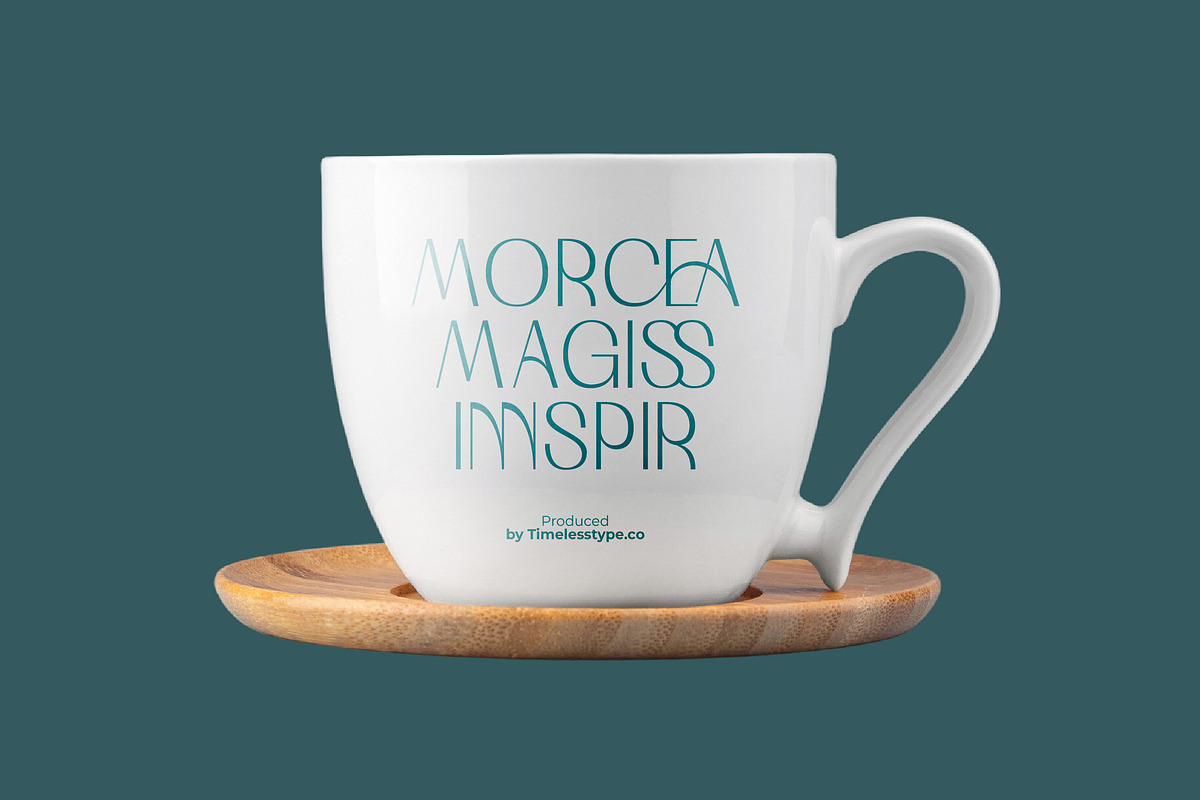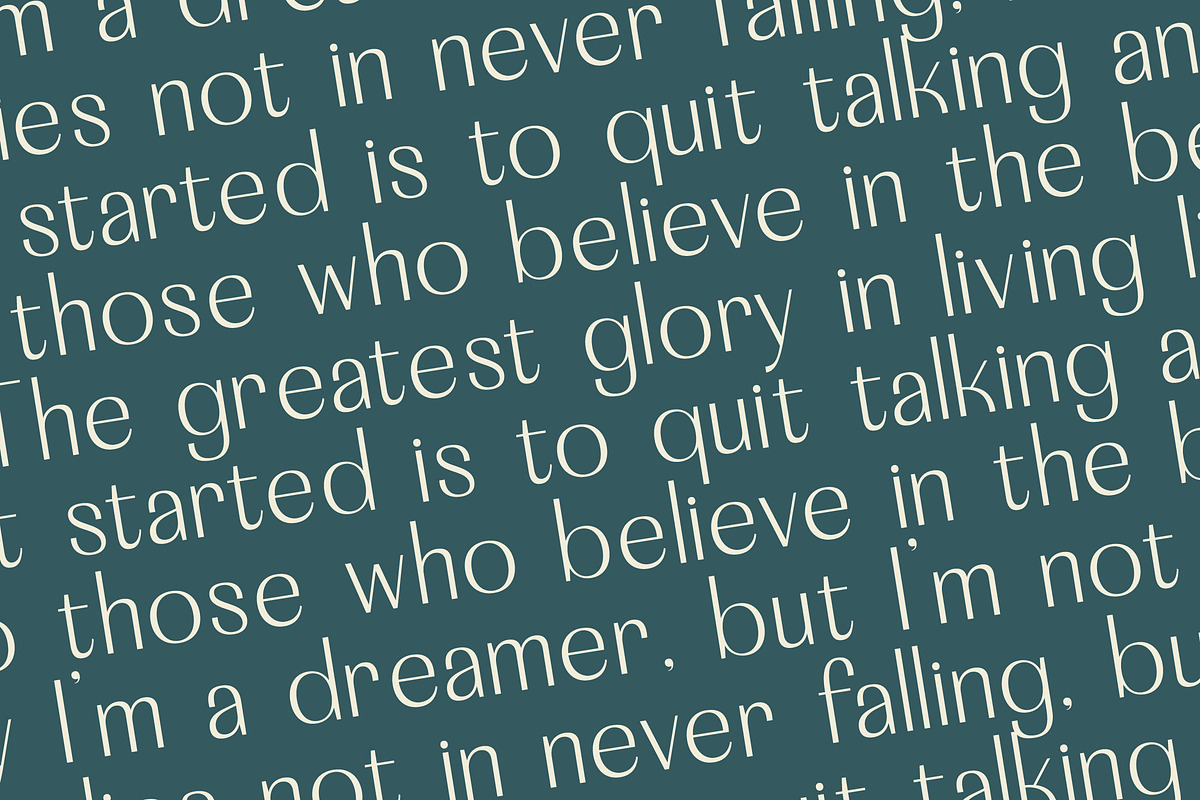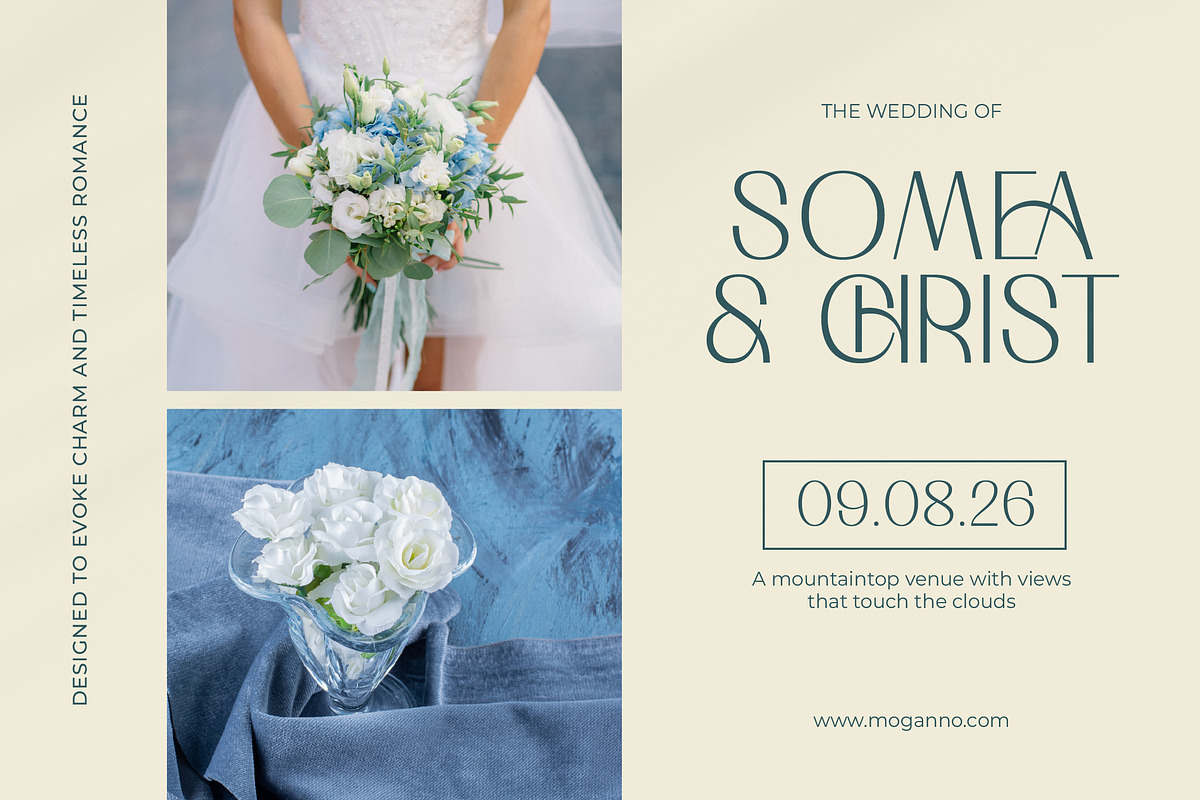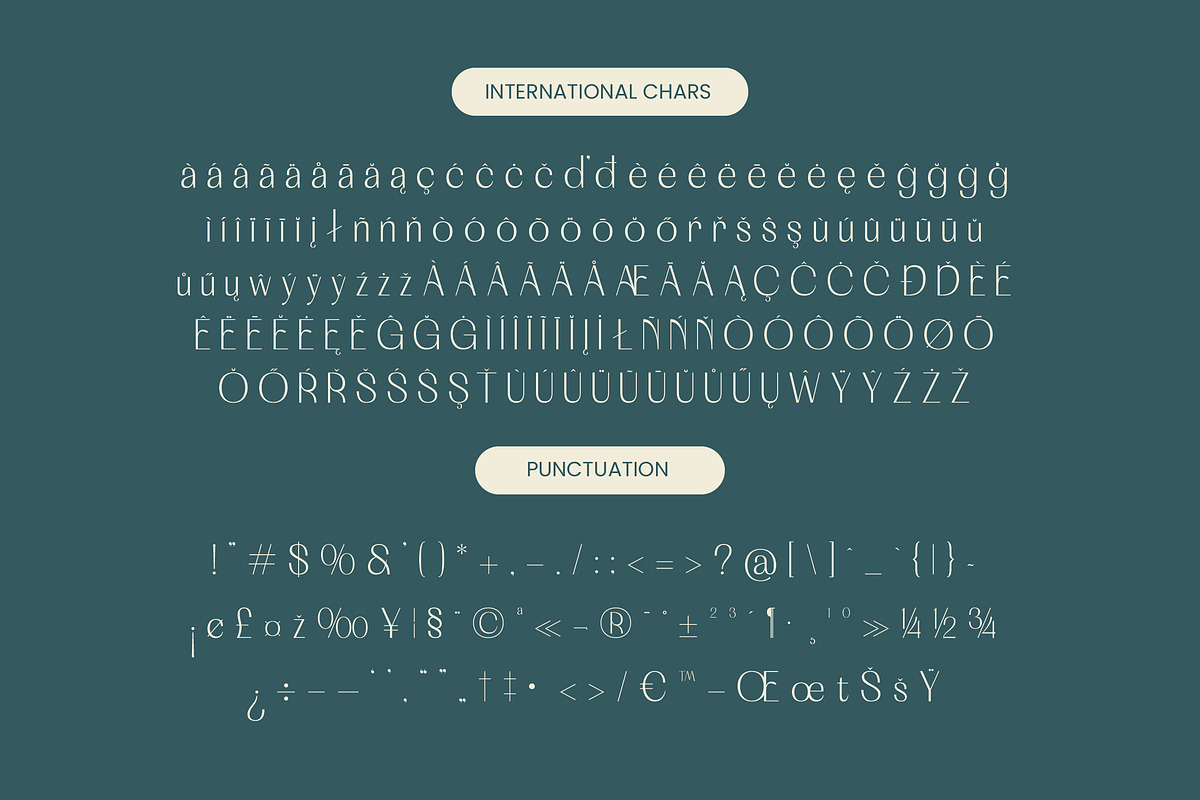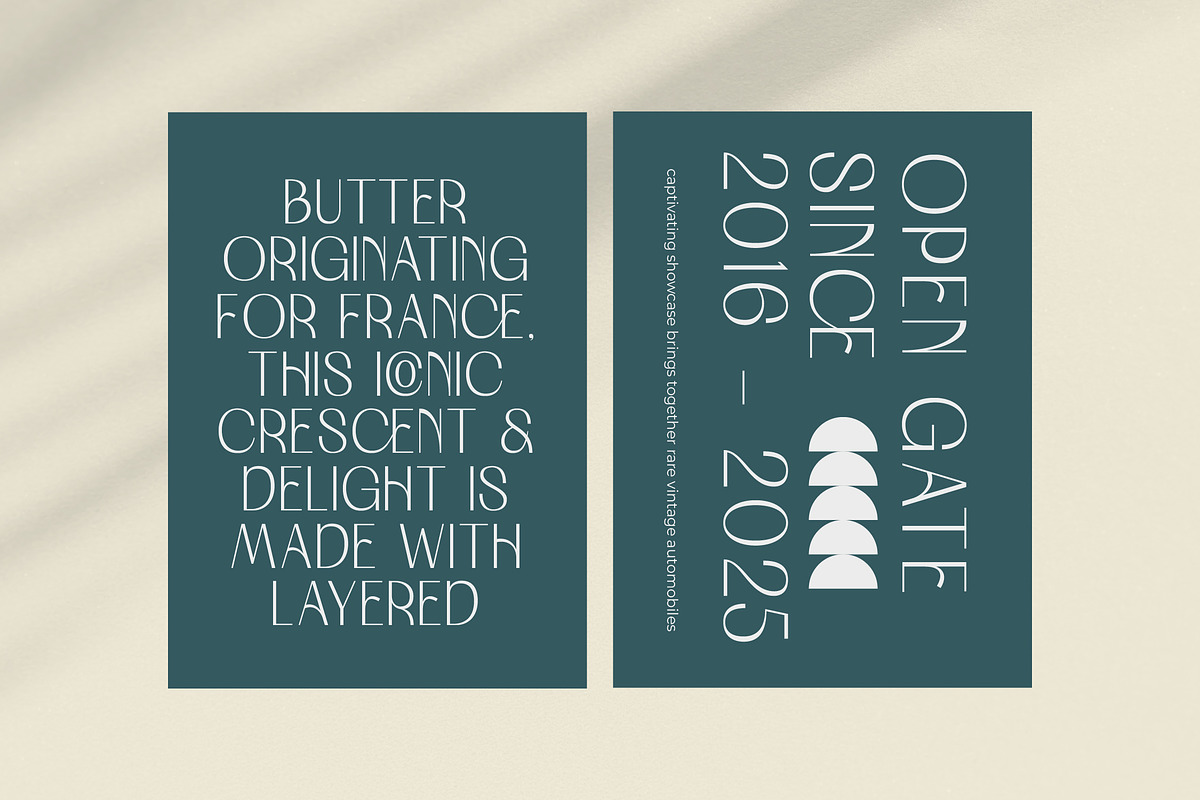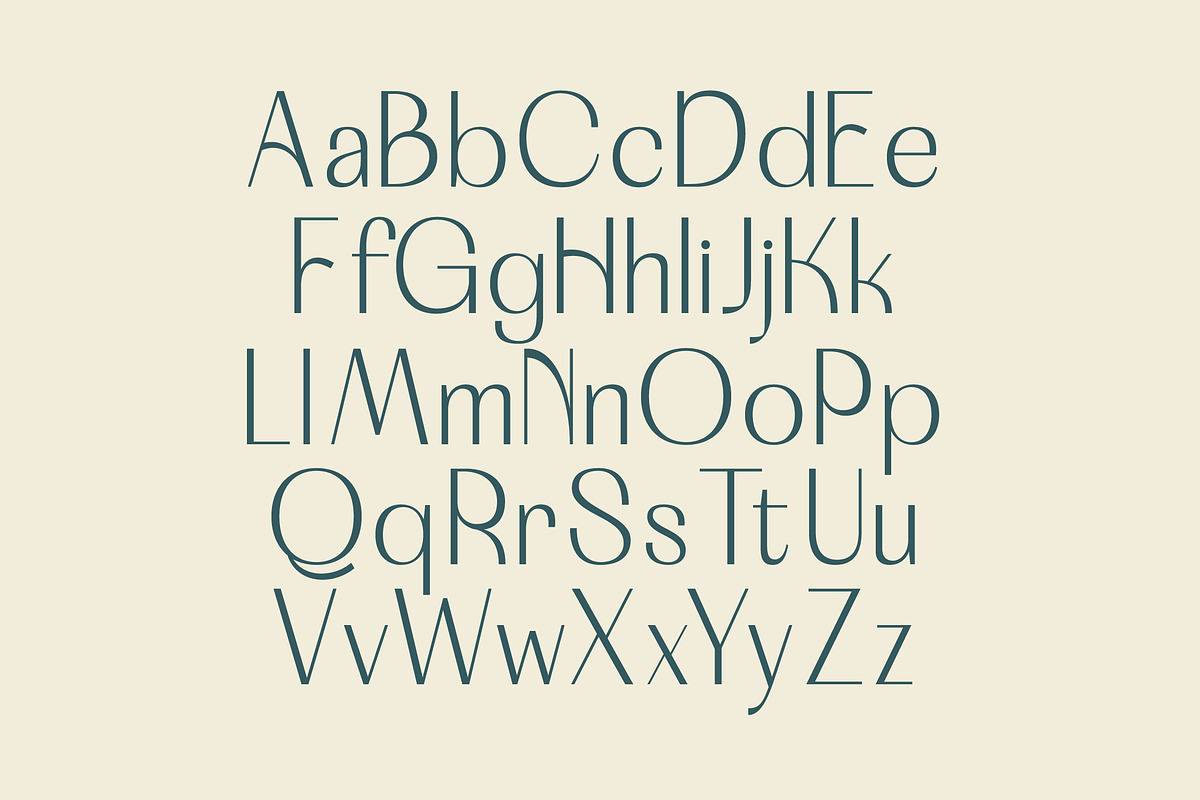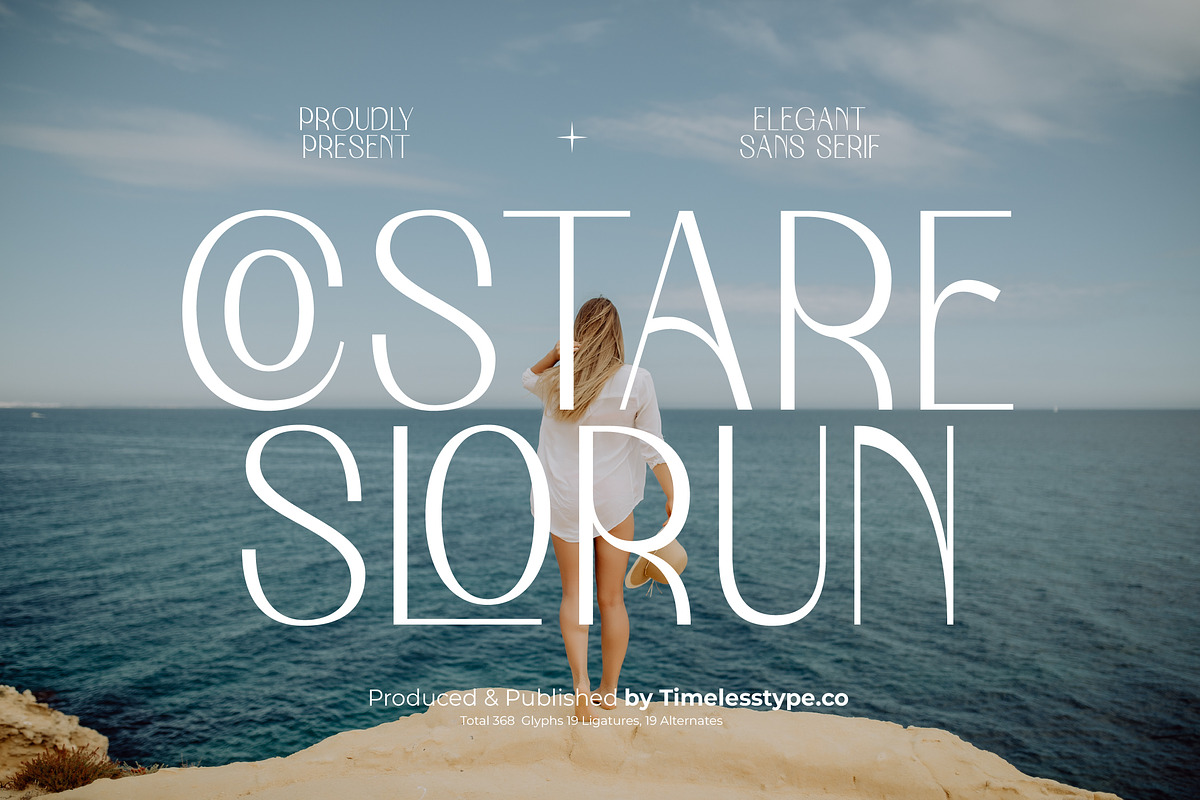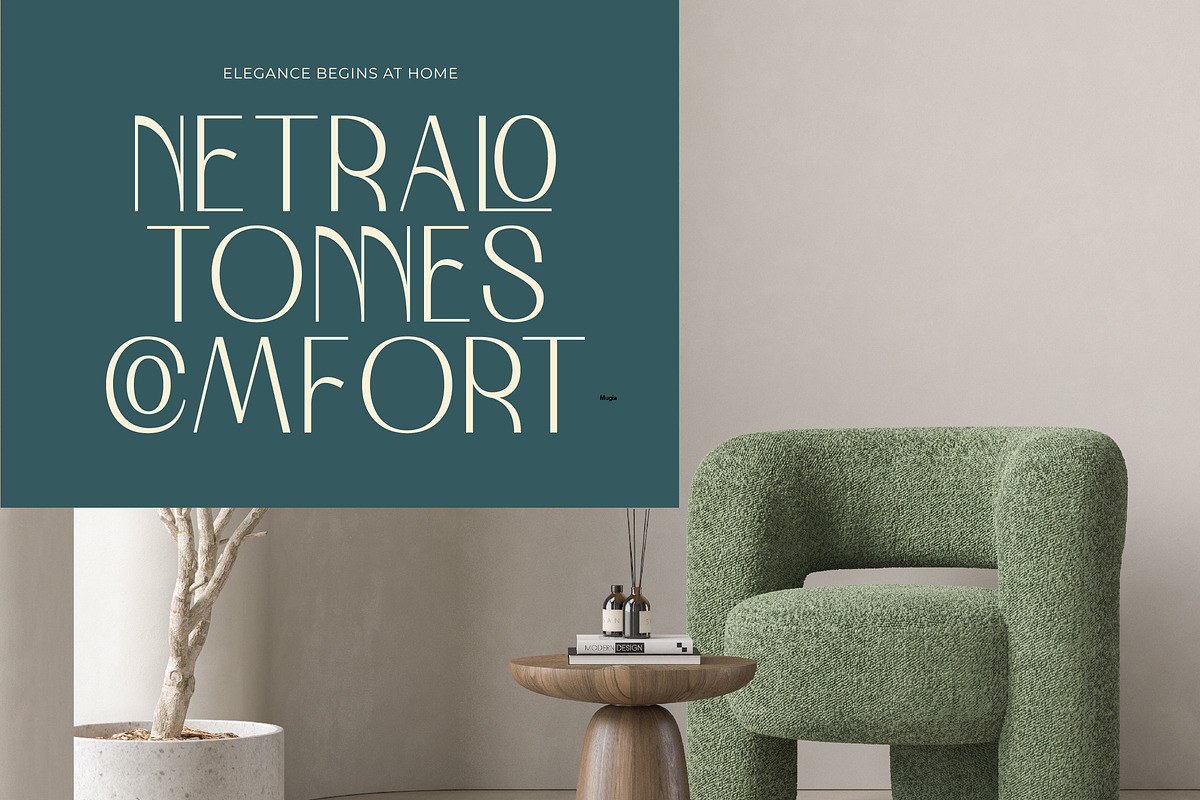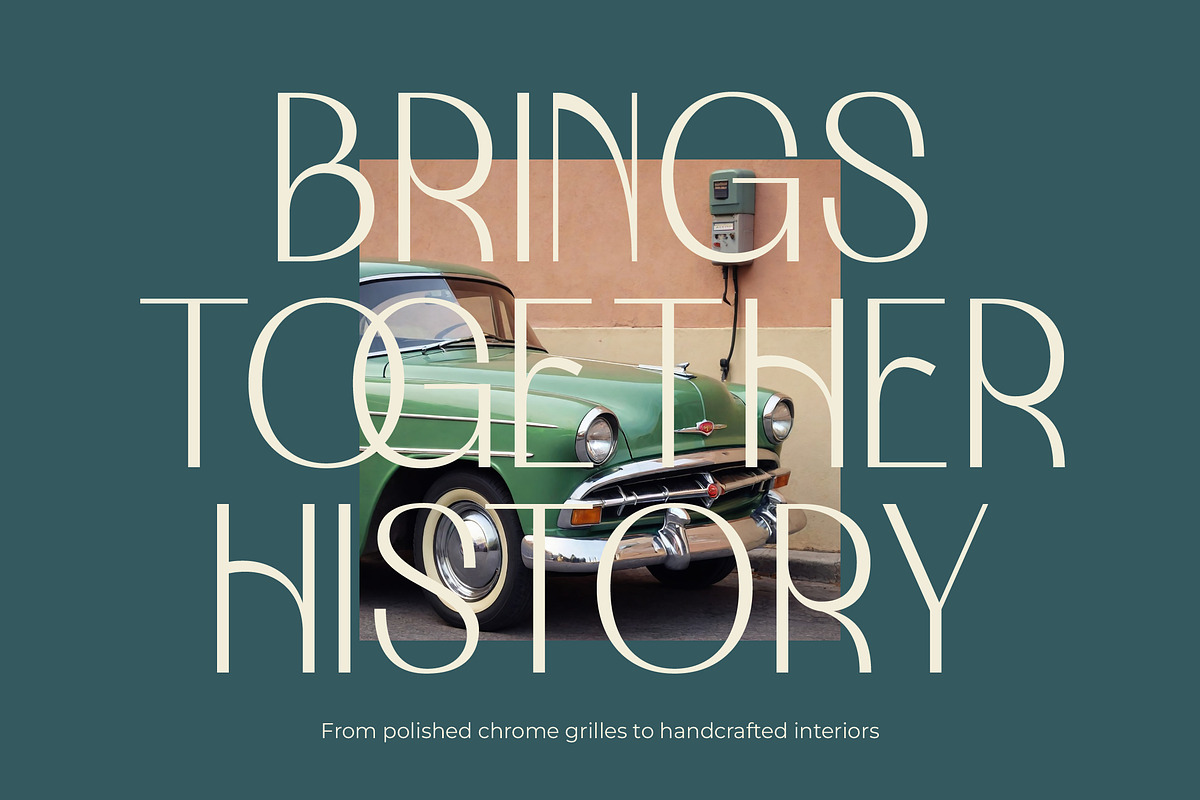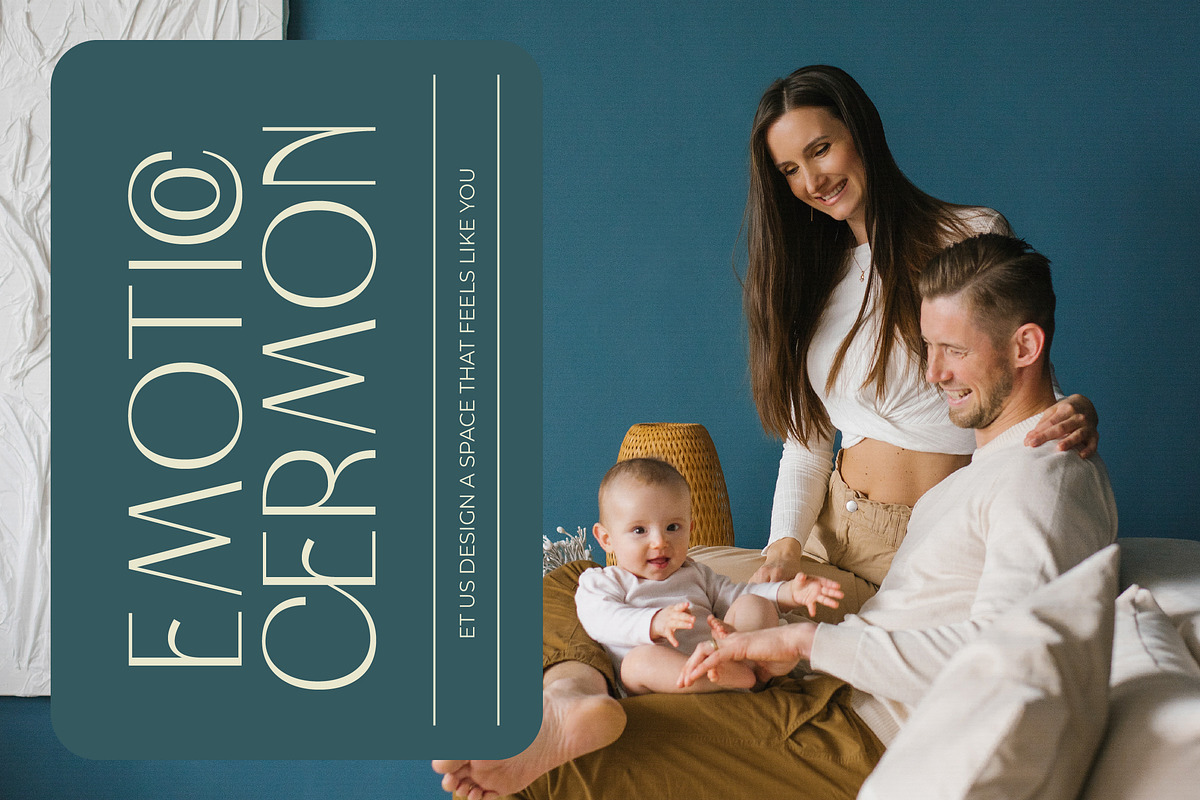
Costare Slorun Display Sans Serif
Costare Slorun is a breathtaking display of sophisticated minimalism and artistic flair that redefines the boundaries of modern letterforms. This elegant typeface transforms every character into a piece of contemporary art, designed specifically for high-end projects that require a touch of class.
Inspired by the serene movements of the ocean and the sharp precision of modern architecture, this font captures a unique balance between fluid curves and rigid verticality. It evokes an atmosphere of quiet luxury and timeless grace, reminiscent of a peaceful sunset over a calm, expansive sea.
With its striking silhouette, this modern serif display offers a level of luxury typography that commands attention without ever shouting. The high-contrast serif elements combined with its sleek structure make it an essential editorial font for creators seeking to make a powerful branding impact across various media.
Riding the wave of the modern serif trend, this typeface aligns perfectly with the current demand for editorial display fonts that prioritize unique personality over generic forms. Designers are increasingly turning to character-driven typography to distinguish boutique brands in a crowded digital landscape, making this font a timely asset.
It excels in high-stakes environments like logo design and high-fashion branding, providing a refined aesthetic for complex editorial layouts and luxury packaging. Its delicate yet strong presence is also ideal for bespoke wedding invitations and upscale fashion magazine spreads.
The font includes a comprehensive set of ligatures and alternates that allow for custom typographic flourishes and unique wordmarks. It also features full multilingual support and a wide range of international characters to ensure global compatibility for all your creative endeavors.
- Ligature 19 Alternate 19